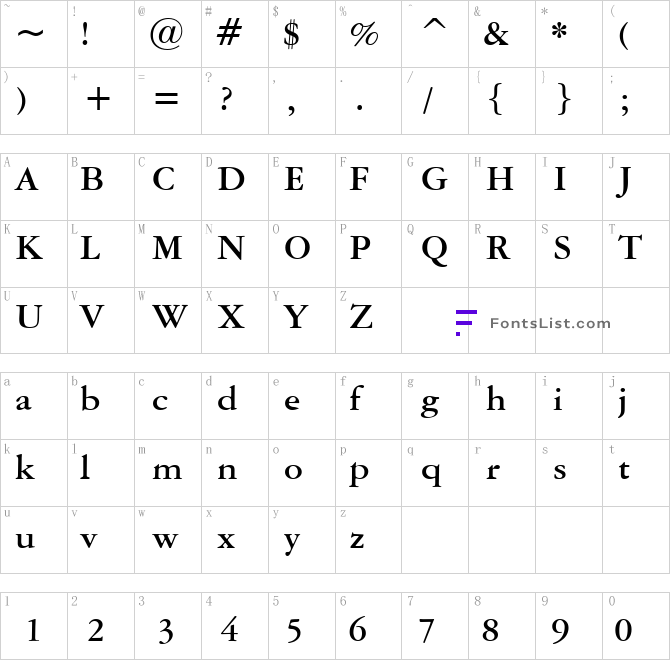
- Font Name:AmeriGarmnd BT
- Subfamily:American Garamond Bold, Aldine 511
- Full Name:American Garamond Bold BT
- PostScript:AmericanGaramondBT-Bold
American-Garamond-Bold-BT-copy-1-.ttf is a very beautiful artistic font, American-Garamond-Bold-BT-copy-1-.ttf is widely used in the design and printing of various books and pictures,American-Garamond-Bold-BT-copy-1-.ttf has a strong visual impact,American-Garamond-Bold-BT-copy-1-.ttf is a commonly used font in newspapers, magazines and books, and is used in posters, e-commerce Poster design, store design, logo design, font design and other fields.American-Garamond-Bold-BT-copy-1-.